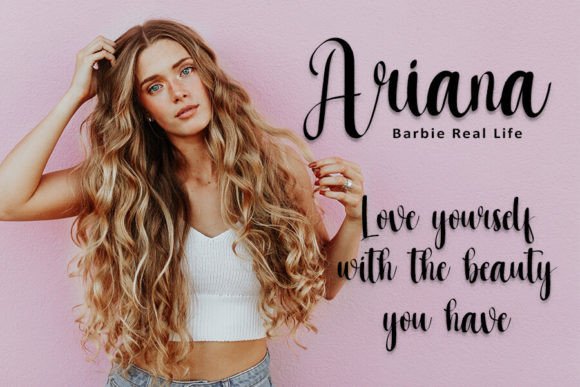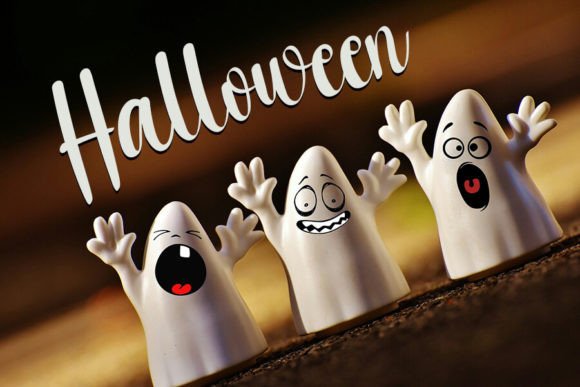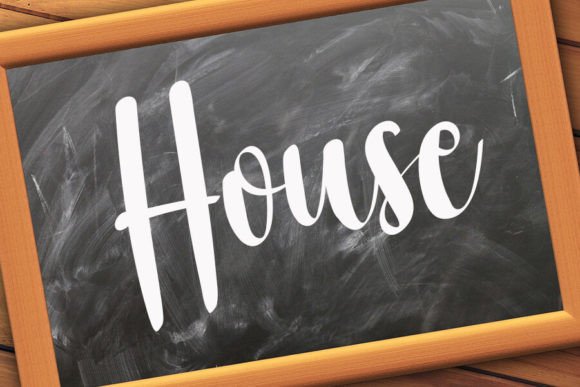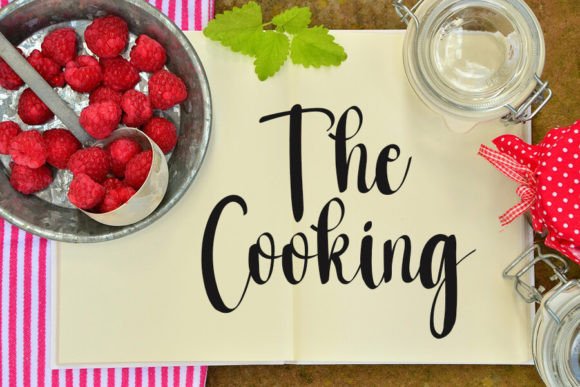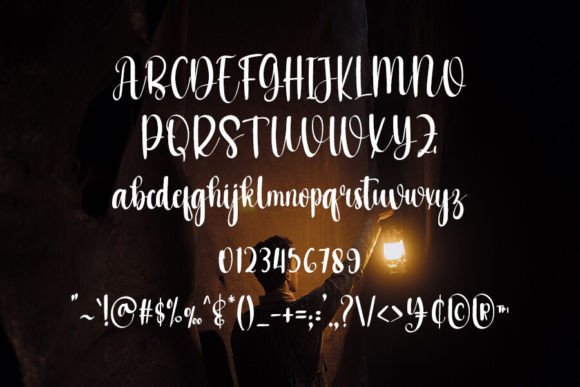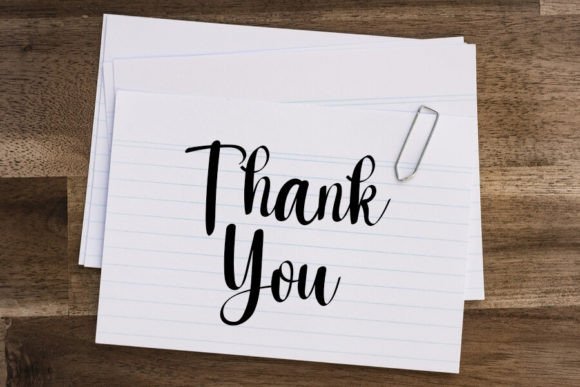
Unlock the Power of Change Font
There’s nothing quite like the thrill of bringing a creative idea to life – the spark of inspiration, the rush of excitement, and the satisfaction of watching it take shape. For designers, this moment is a constant companion, and the right tools can make all the difference. That’s where Change Font comes in – a stylish handwritten font that adds a touch of elegance and sophistication to any project.
Designed to evoke the timeless charm of classic calligraphy, Change Font is the perfect choice for those seeking to add a contemporary twist to their designs. With its balanced and varied form, this font is sure to elevate your projects to new heights. Plus, its PUA encoding makes it easy to access all the amazing glyphs and ligatures, giving you even more creative freedom.